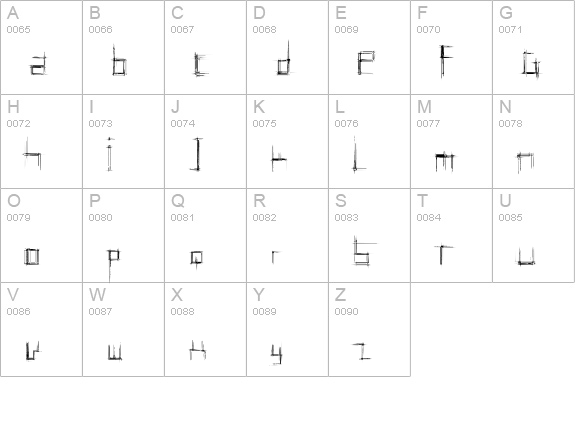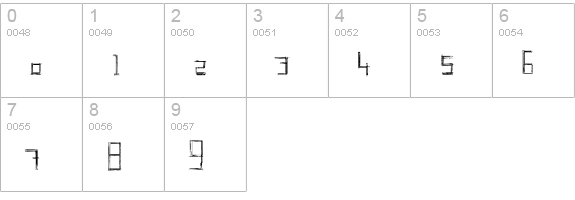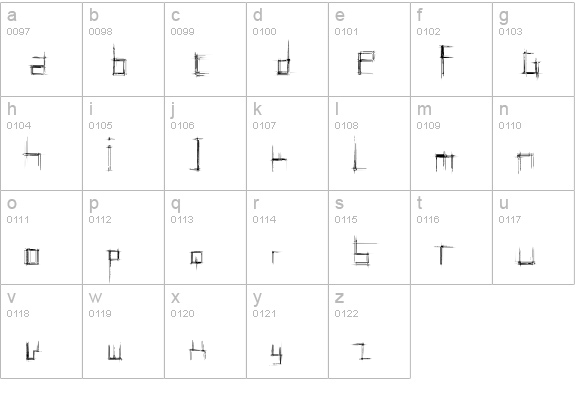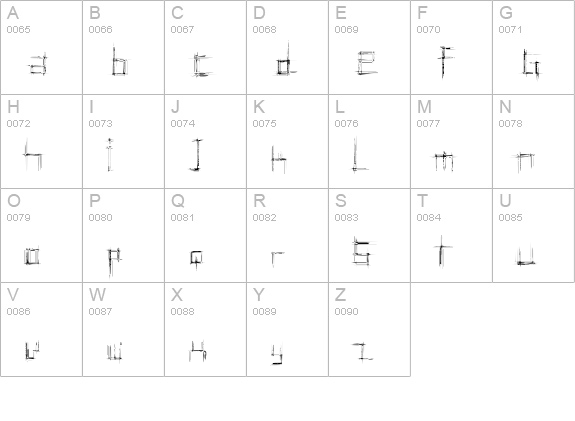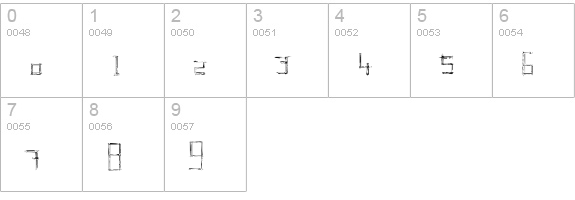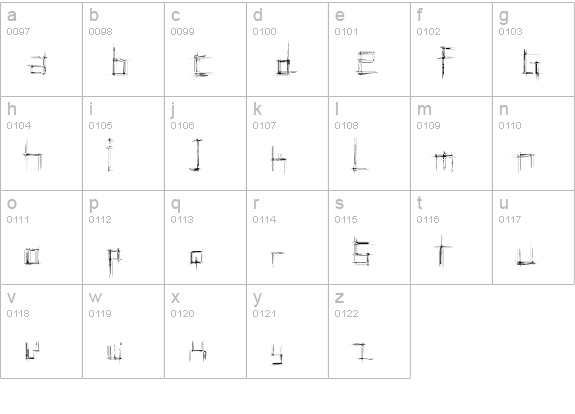
Bruised Zero Font Details
Bruised Zero font is a unique and unconventional typeface that combines a distressed, rough texture with a bold and striking design. Its rugged appearance gives off a sense of edginess and rawness, making it perfect for projects that require a gritty and urban aesthetic. Despite its rough exterior, Bruised Zero font offers excellent legibility and readability, making it suitable for a wide range of design applications. Whether you're working on a poster, logo, branding, or any other creative project, this font will add a touch of personality and character to your designs. Best of all, Bruised Zero font is completely free to download at FontsMarket.com. So go ahead and grab this unique typeface to add a touch of roughness and individuality to your next design project.